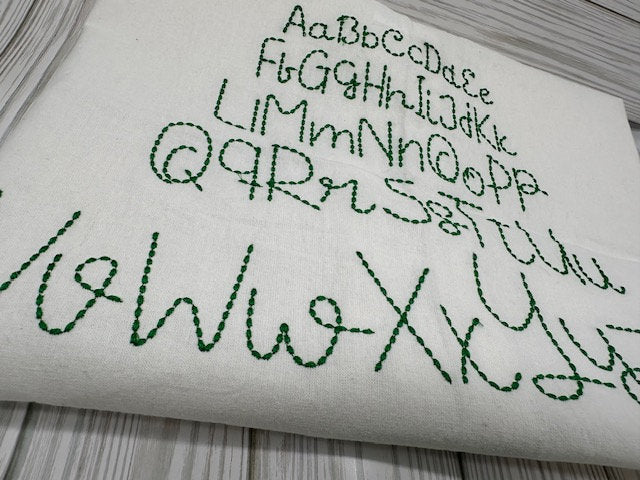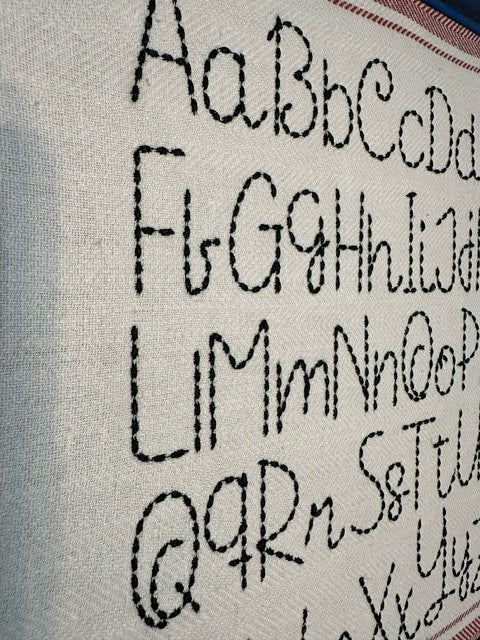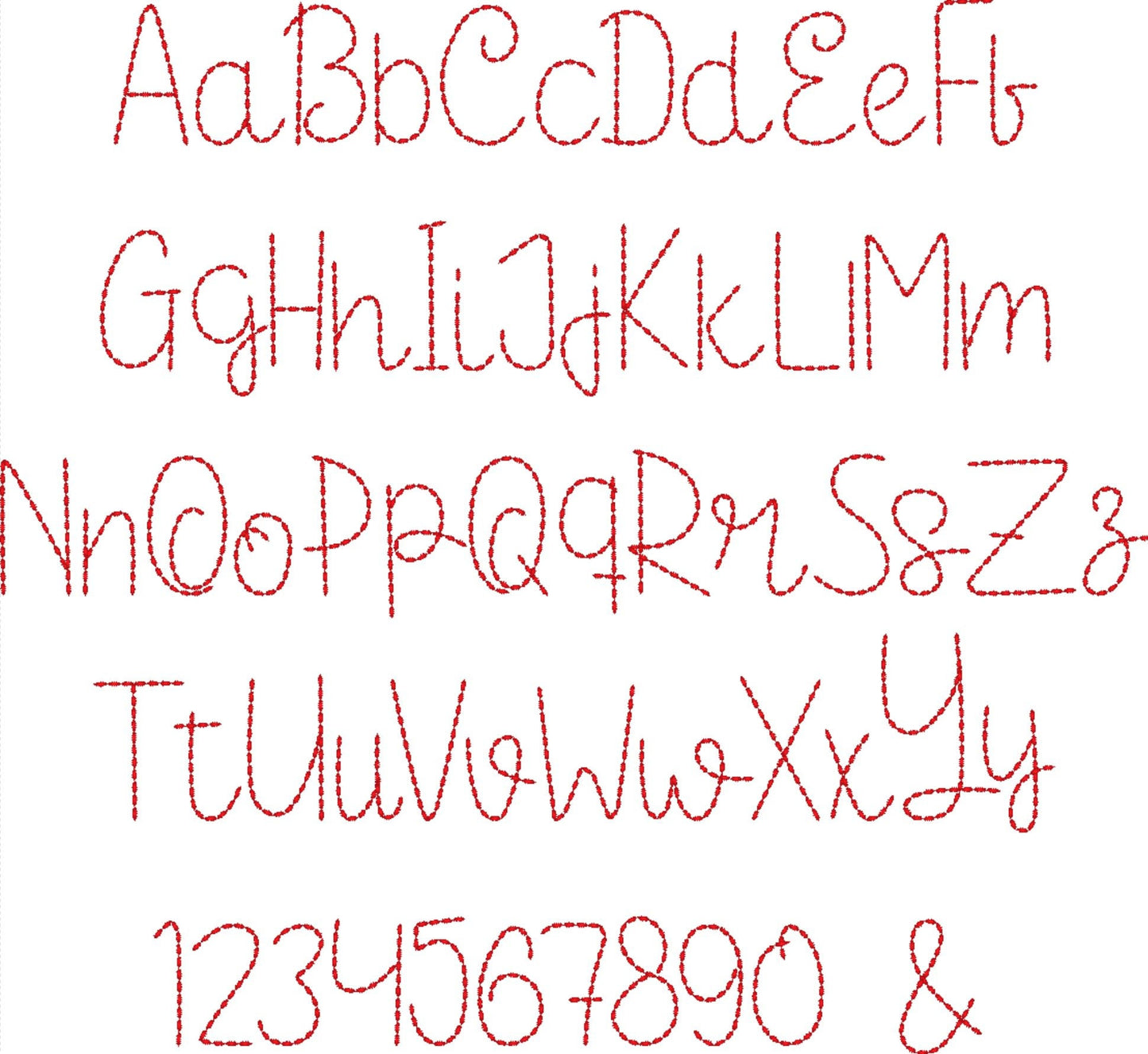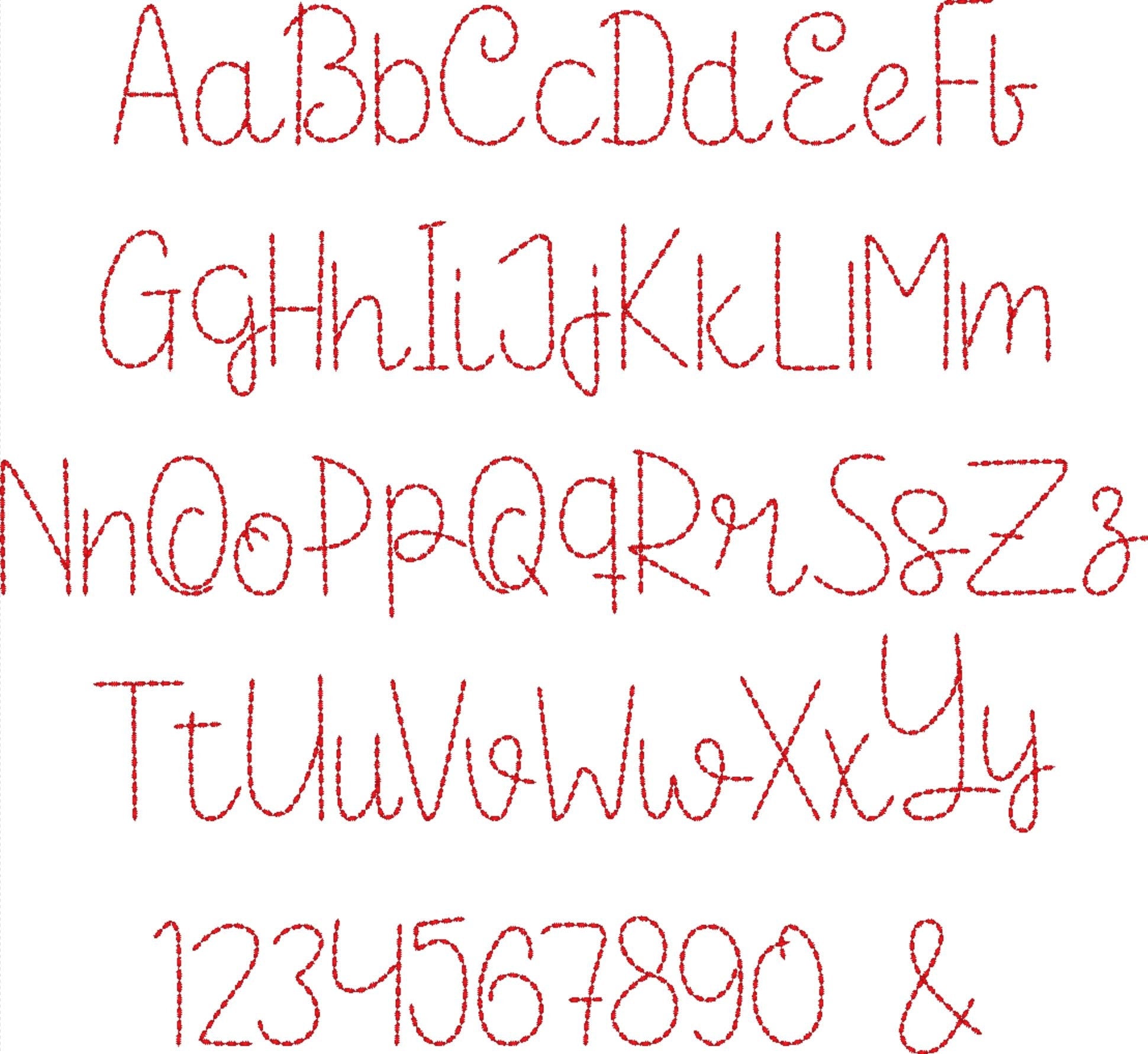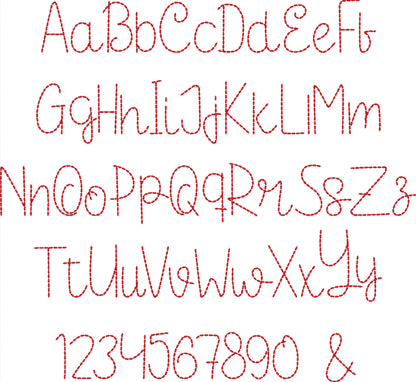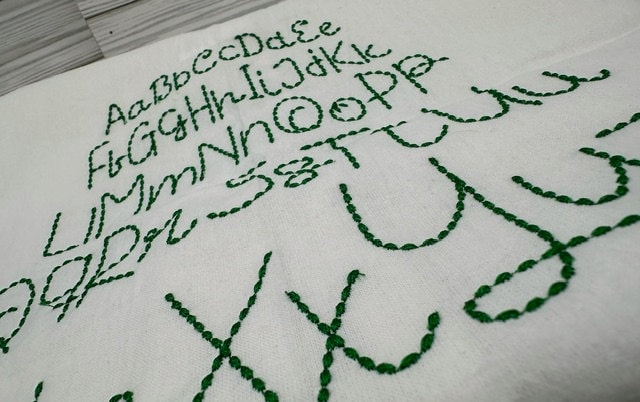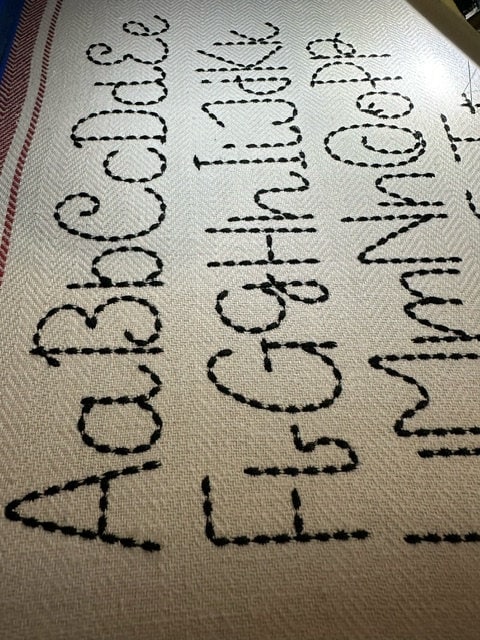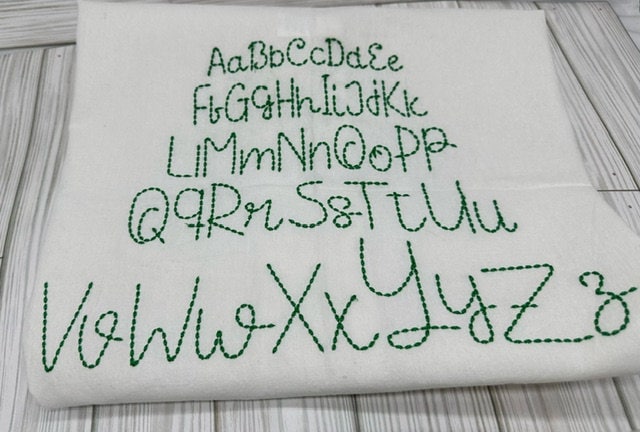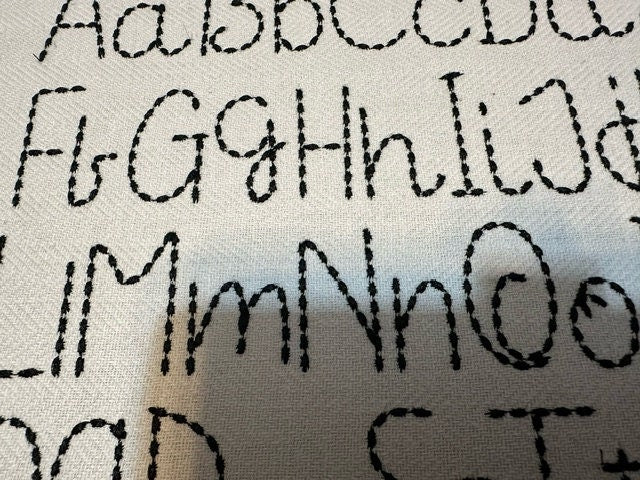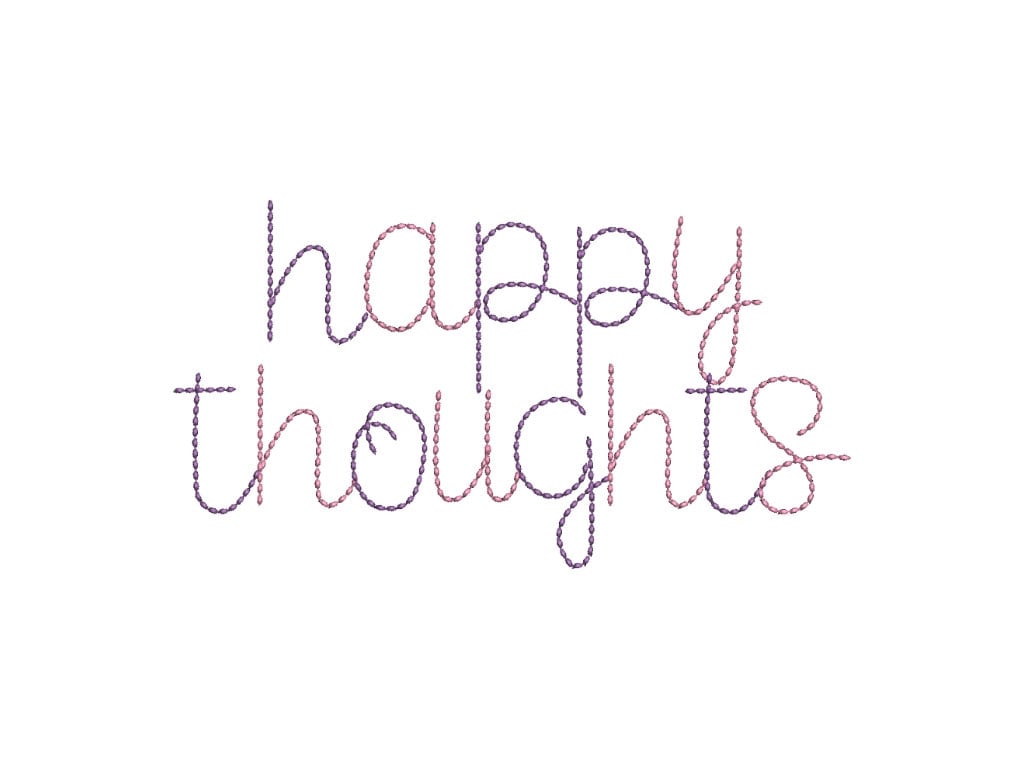
Or click to open the linkA playful font with a hand-stitched seed stitch look, in mini sizes. Made for baby and kids' names, necklines and small gifts.
Uppercase and lowercase letters, numbers 0 to 9 and an ampersand. Seven sizes: 0.9, 1, 1.4, 1.6, 2, 2.5 and 3 inches.